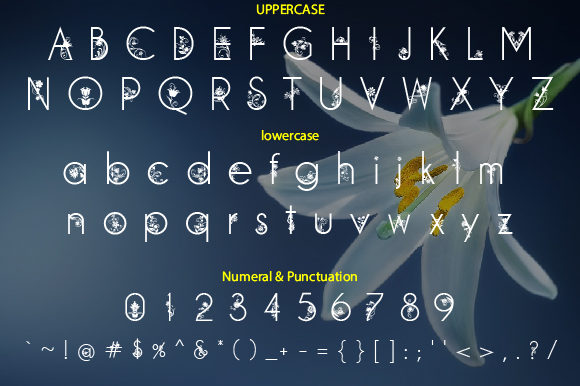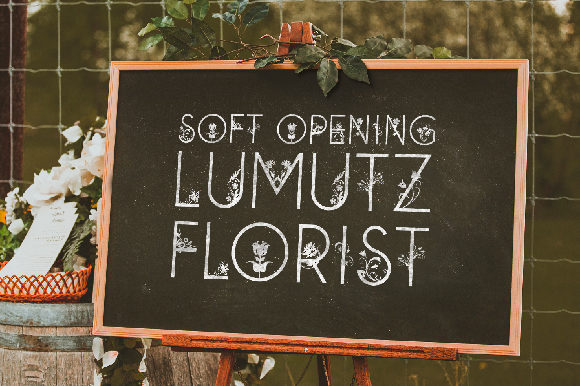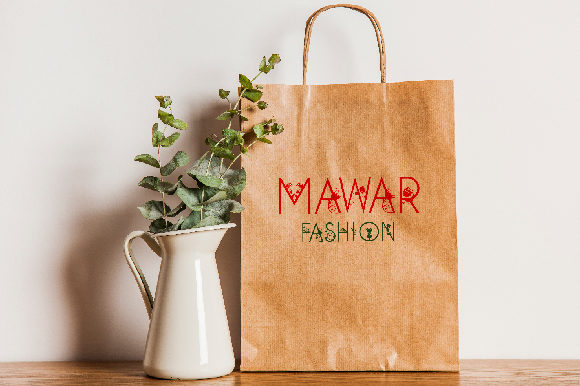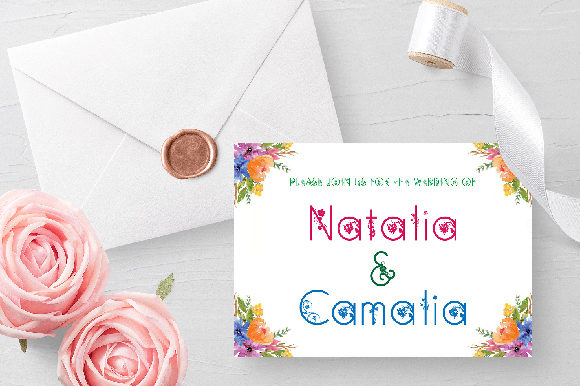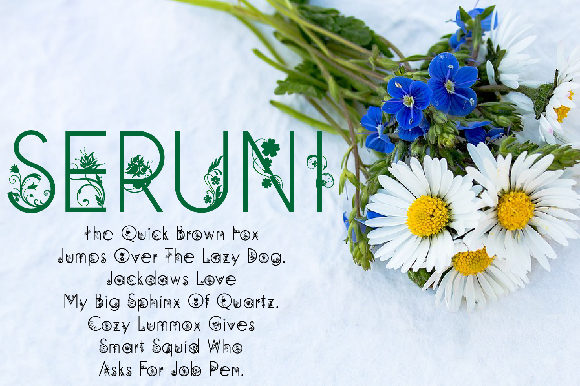
Discover the Delicate Charm of Flowrish Font: A Botanical Masterpiece
Are you a designer, crafter, or nature enthusiast looking for a font that captures the essence of the botanical world? Look no further than Flowrish Font, a stunning and delicate flower-themed font that will transport you to a world of beauty and serenity. With its unique botanical twist, Flowrish Font is the perfect addition to any nature-inspired project, and we’re excited to dive into its features and uses in this article.
The Beauty of Flowrish Font
Flowrish Font is a masterpiece of typographic design, with a delicate and intricate style that evokes the beauty of flowers and botanical illustrations. Each letter and decorative element is carefully crafted to resemble the intricate details of flowers, leaves, and stems, creating a truly one-of-a-kind font that will add a touch of elegance and sophistication to any project.
One of the standout features of Flowrish Font is its decorative elements, which include a range of beautiful floral motifs, leaves, and stems. These elements can be used to add a touch of whimsy and personality to your designs, and can be easily customized to fit your specific needs. Whether you’re creating a logo, branding materials, or social media graphics, Flowrish Font is the perfect choice.
What Makes Flowrish Font So Special?
So what sets Flowrish Font apart from other fonts on the market? Here are just a few of its unique features:
- Delicate and intricate design: Flowrish Font features a delicate and intricate design that is reminiscent of botanical illustrations.
- Unique botanical twist: The font’s botanical twist sets it apart from other flower-themed fonts, making it perfect for nature-inspired projects.
- Decorative elements: The font includes a range of beautiful decorative elements, including floral motifs, leaves, and stems.
- Easily customizable: Flowrish Font can be easily customized to fit your specific needs, making it perfect for a range of design applications.
Uses for Flowrish Font
Flowrish Font is a versatile font that can be used for a wide range of design applications, including:
- Logos and branding materials: The font’s unique and elegant design makes it perfect for logos and branding materials.
- Social media graphics: Flowrish Font can be used to create stunning social media graphics, including Facebook posts, Instagram stories, and more.
- Stationery and invitations: The font’s delicate and intricate design makes it perfect for stationery and invitations.
- Crafting and DIY projects: Flowrish Font can be used for a range of crafting and DIY projects, including card making, scrapbooking, and more.
Tips for Using Flowrish Font
Here are a few tips for getting the most out of Flowrish Font:
- Experiment with different colors: The font’s delicate design looks beautiful in a range of colors, from soft pastels to bold and bright hues.
- Mix and match decorative elements: Flowrish Font’s decorative elements can be mixed and matched to create unique and eye-catching designs.
- Use it for headlines and titles: The font’s elegant design makes it perfect for headlines and titles.
Flowrish Font is a beautiful and delicate flower-themed font that is perfect for designers, crafters, and nature enthusiasts. With its unique botanical twist and decorative elements, it’s the perfect addition to any nature-inspired project. Whether you’re creating logos and branding materials, social media graphics, or crafting and DIY projects, Flowrish Font is sure to impress. So why wait? Download Flowrish Font today and discover the beauty of botanical typography for yourself!